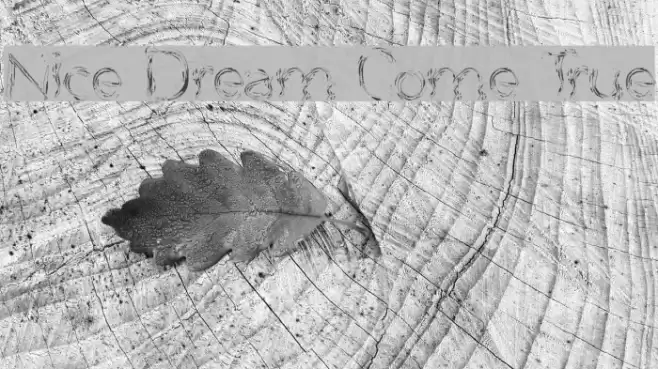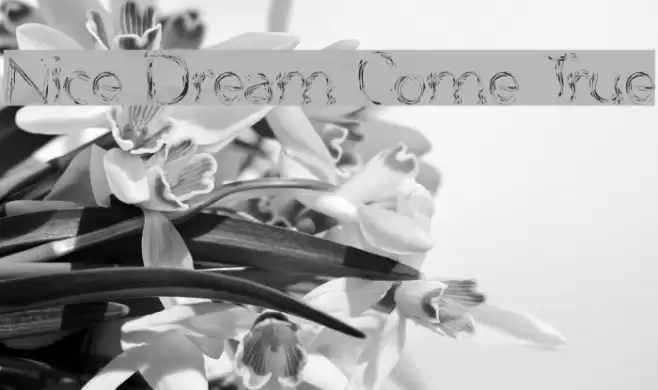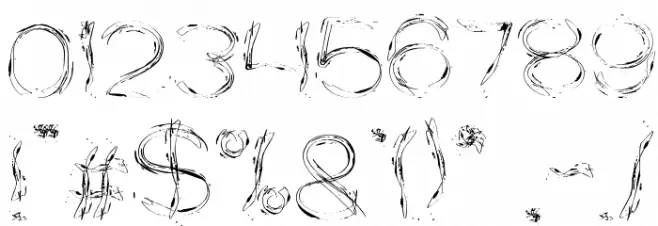
Nice Dream Come True Font
Nice Dream Come True Description
This font features a highly decorative and artistic style, characterized by its swirling, sketch-like strokes that give it a hand-drawn appearance. The letters are irregular and dynamic, with a sense of movement and fluidity. Each character is unique, with varying line thicknesses that create a textured, almost chaotic look. The uppercase and lowercase letters maintain a consistent style, while the numbers and special characters follow the same artistic theme. This font is visually striking and stands out due to its unconventional design.
A decorative, hand-drawn font with swirling, sketch-like strokes from Uncategorized fonts.
- Proposed Projects: Ideal for artistic projects, album covers, posters, and creative branding that require a unique and eye-catching typeface.
- Use Case: Logos, Posters, Artistic projects